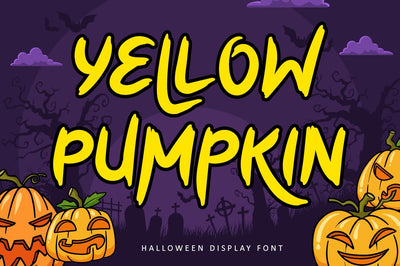
Yellow Pumpkin - Halloween Font
Yellow Pumpkin is a thick-lettered, brushed and spooky display font. It is perfectly suitable for any Halloween-related project or crafty idea! The only limit is your imagination.
- Uppercase and lowercase
- Numbers
- Symbols
- Multilingual Accent